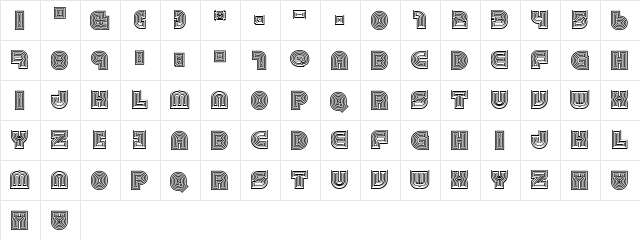
Design Context for 79 Typeface
79 wears its vintage influences proudly, with letterforms that recall mid-century signage, classic packaging, and nostalgia-driven design.
Font Pairing: Combine 79 with a simple slab or neutral sans — period-accurate companions reinforce the vintage feel without competing for attention.
Pro Tip: Lean into 79's period character by pairing it with aged paper textures, muted colour palettes, and vintage illustration styles.